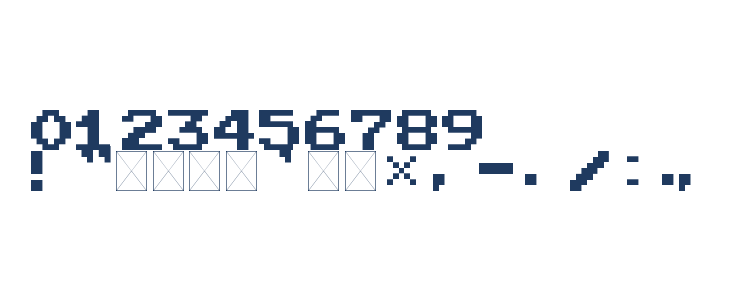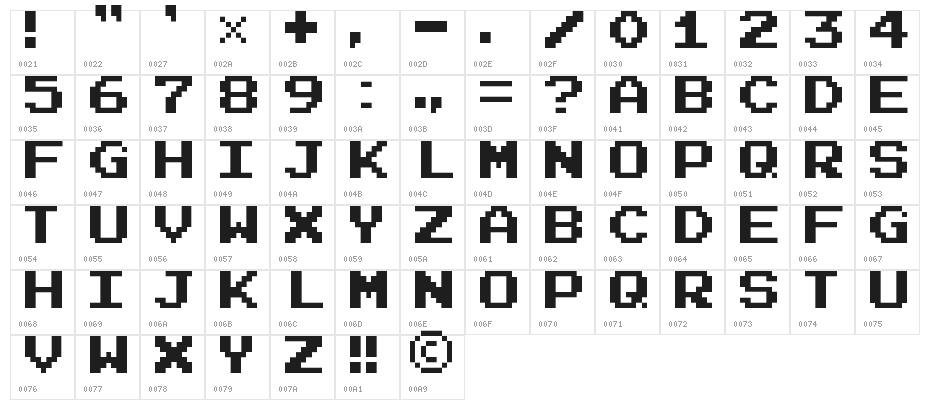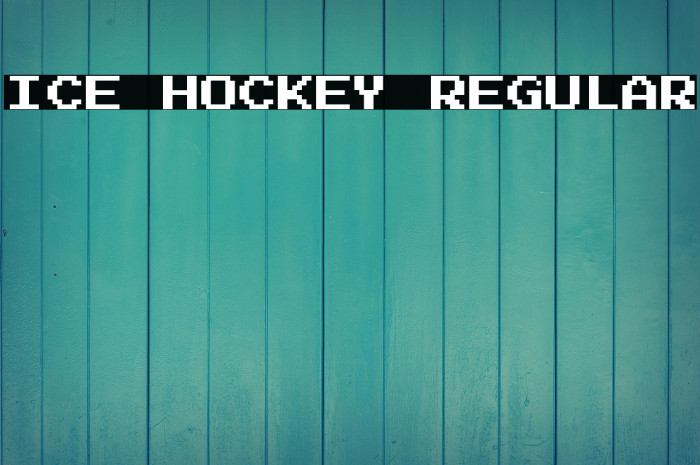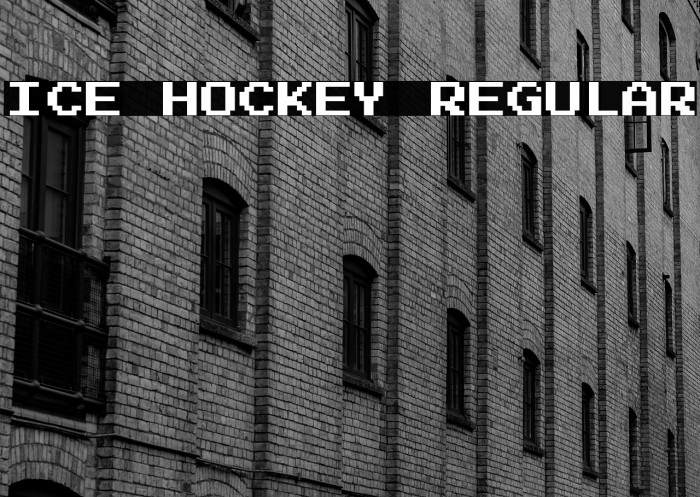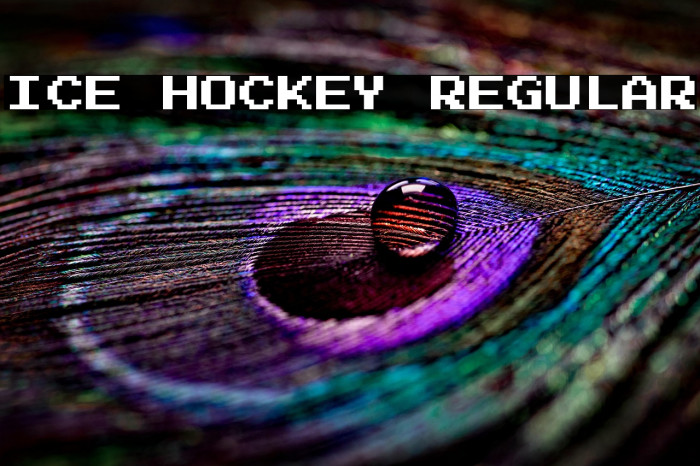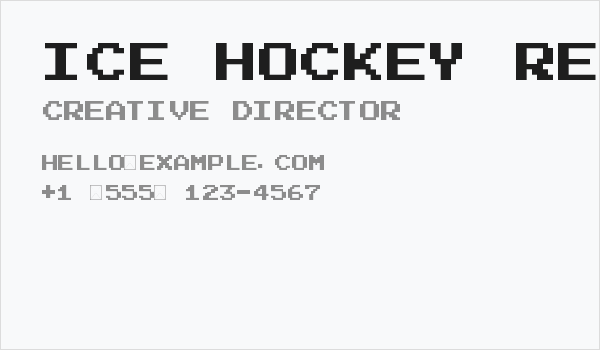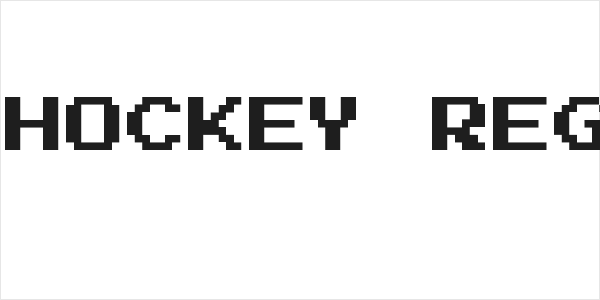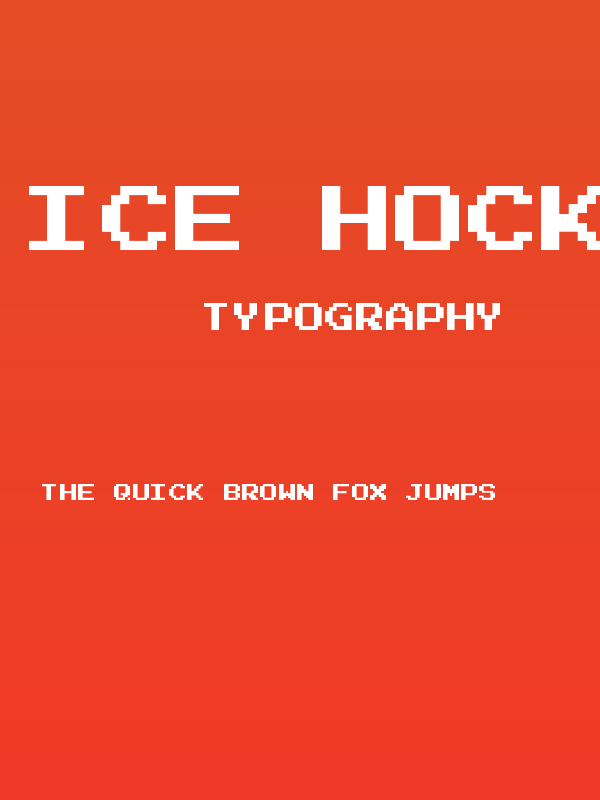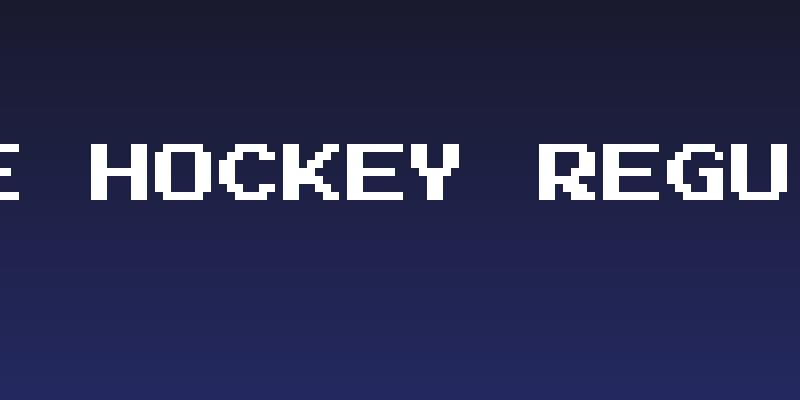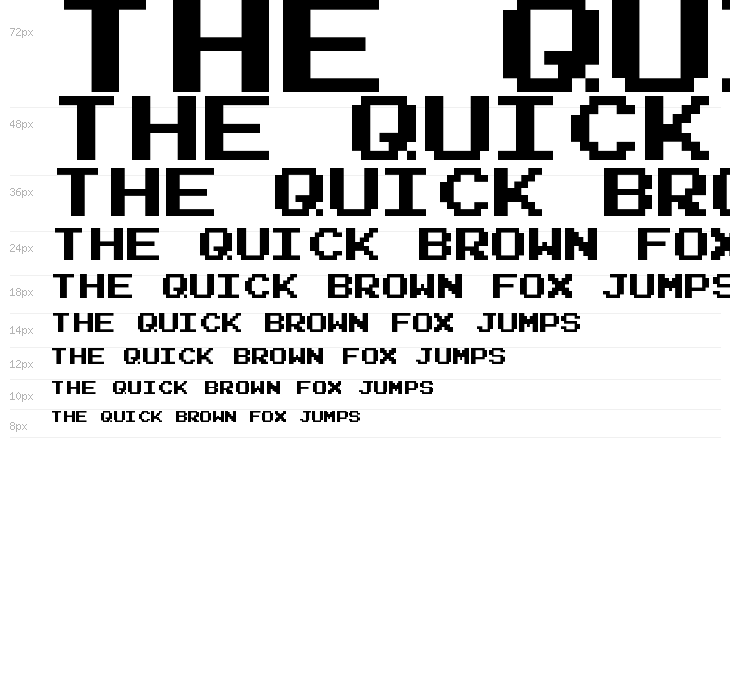
Ice Hockey Regular Font
Ice Hockey Regular Description
This font features a bold, pixelated style reminiscent of retro video game graphics. Each character is constructed with a blocky, grid-like appearance, giving it a distinctly digital feel. The uppercase and lowercase letters maintain a consistent height, contributing to a uniform and cohesive look. Numbers and special characters follow the same pixelated design, ensuring visual harmony across all elements. The font's geometric structure and sharp edges make it highly legible, even at smaller sizes. Its nostalgic aesthetic is ideal for projects that aim to evoke a sense of classic gaming or digital nostalgia.
| Overall Style | Retro, Digital |
| Proposed Projects | Ideal for video game designs, retro-themed posters, digital art, and tech-related branding. |